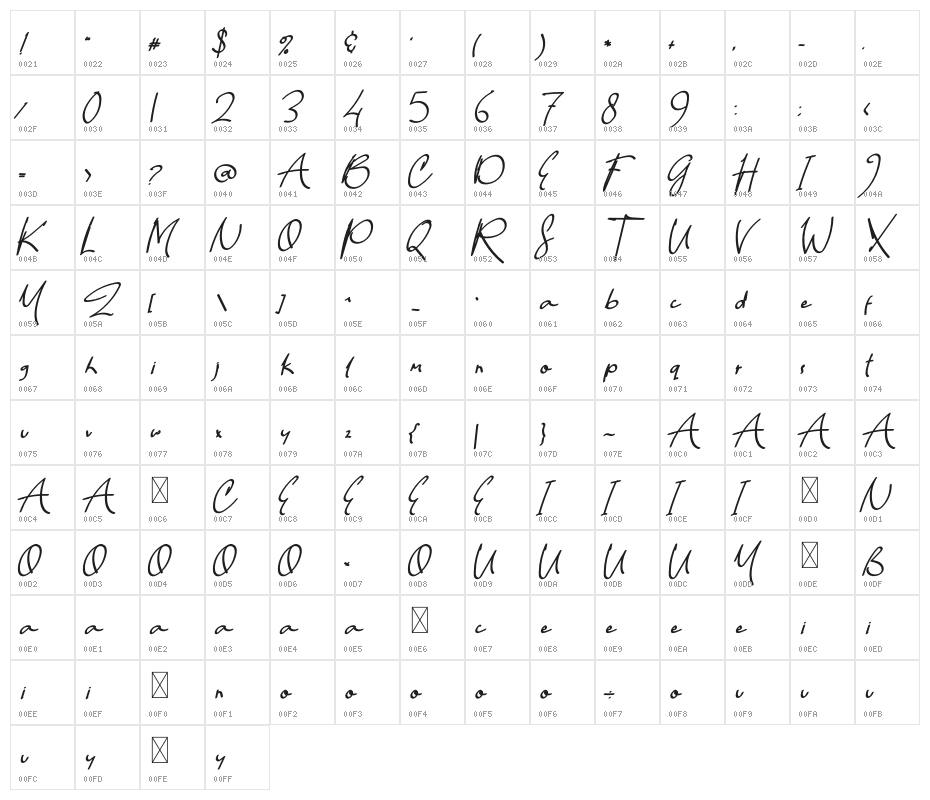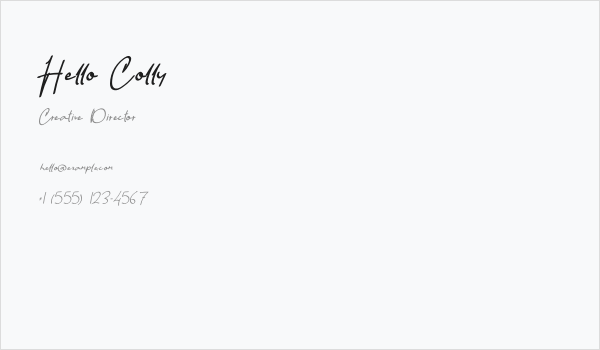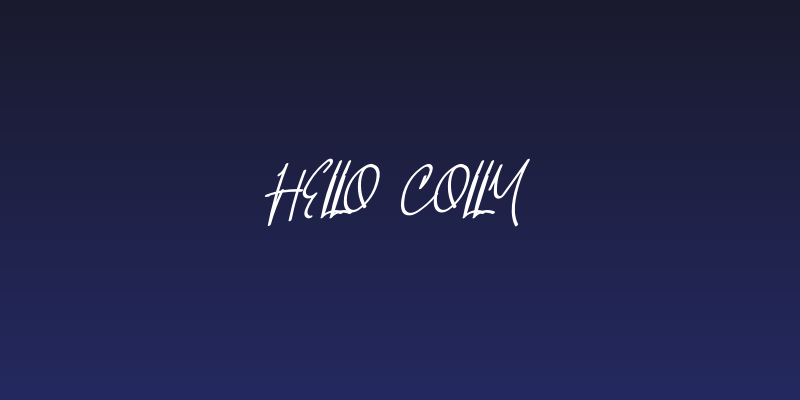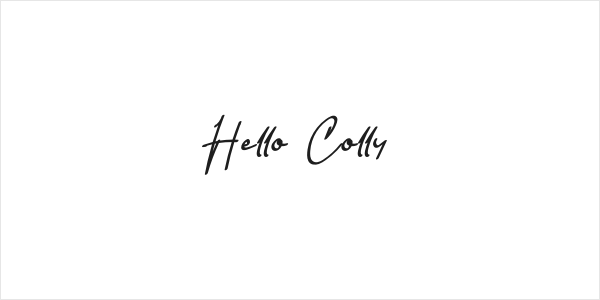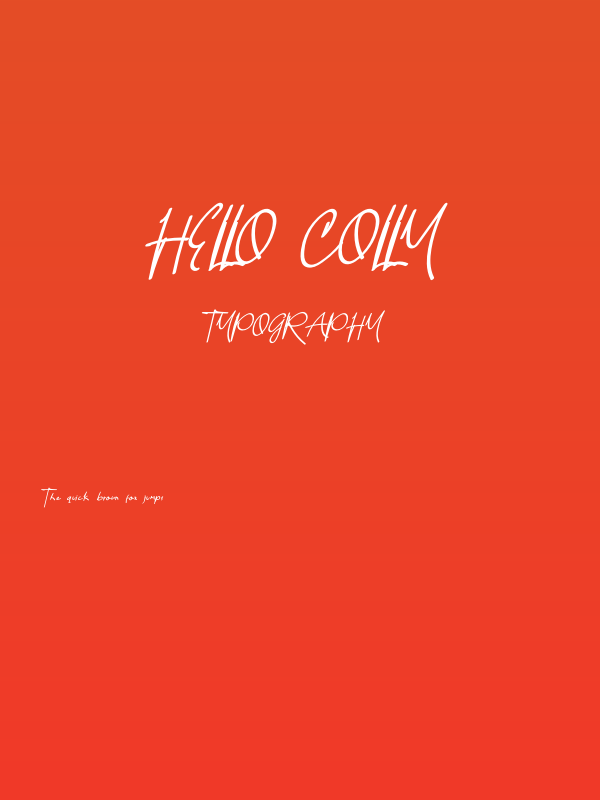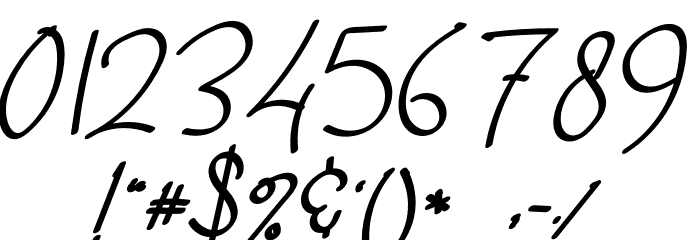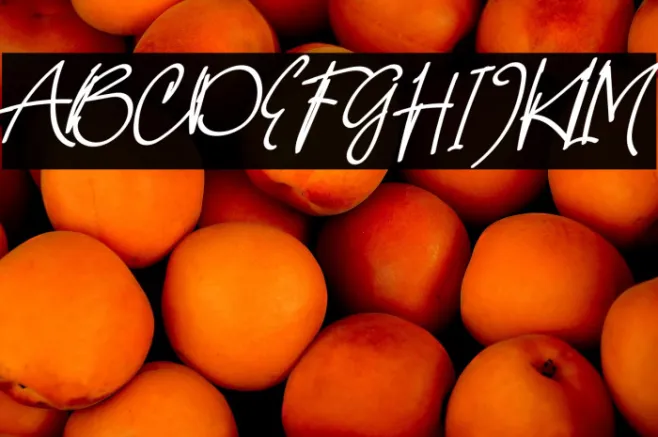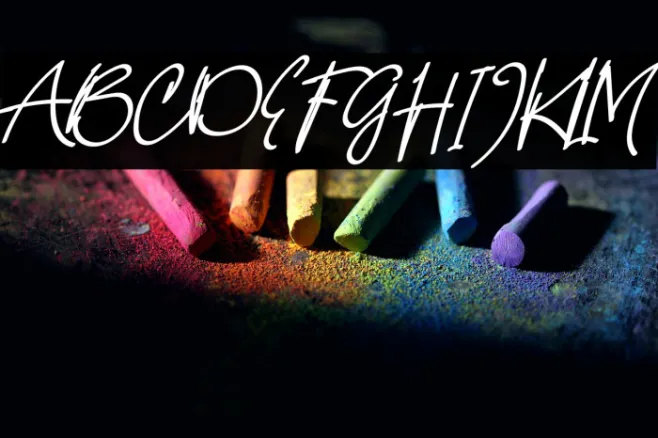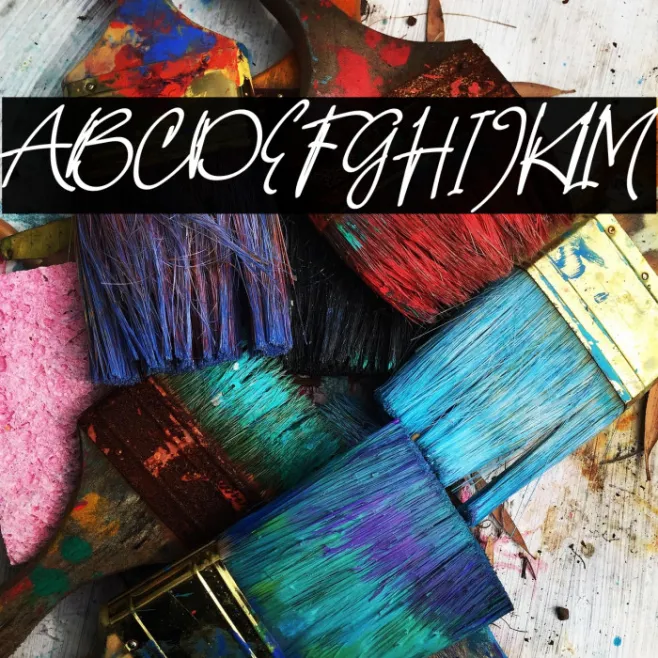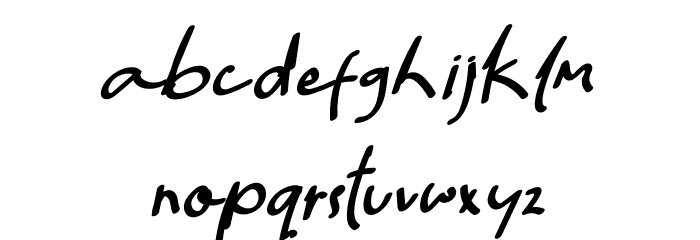
Hello Colly Font
Hello Colly Description
This font features a dynamic and expressive handwritten style, characterized by its fluid and organic strokes. The uppercase letters are bold and slightly slanted, giving a sense of motion and energy. The lowercase letters maintain a consistent flow, with some letters extending below the baseline, adding to the casual and informal feel. The numerals are well-integrated with the overall style, maintaining the same lively and freeform appearance. Special characters are creatively designed, complementing the playful nature of the font. This typeface is ideal for projects that require a personal touch, such as invitations, greeting cards, or artistic branding.